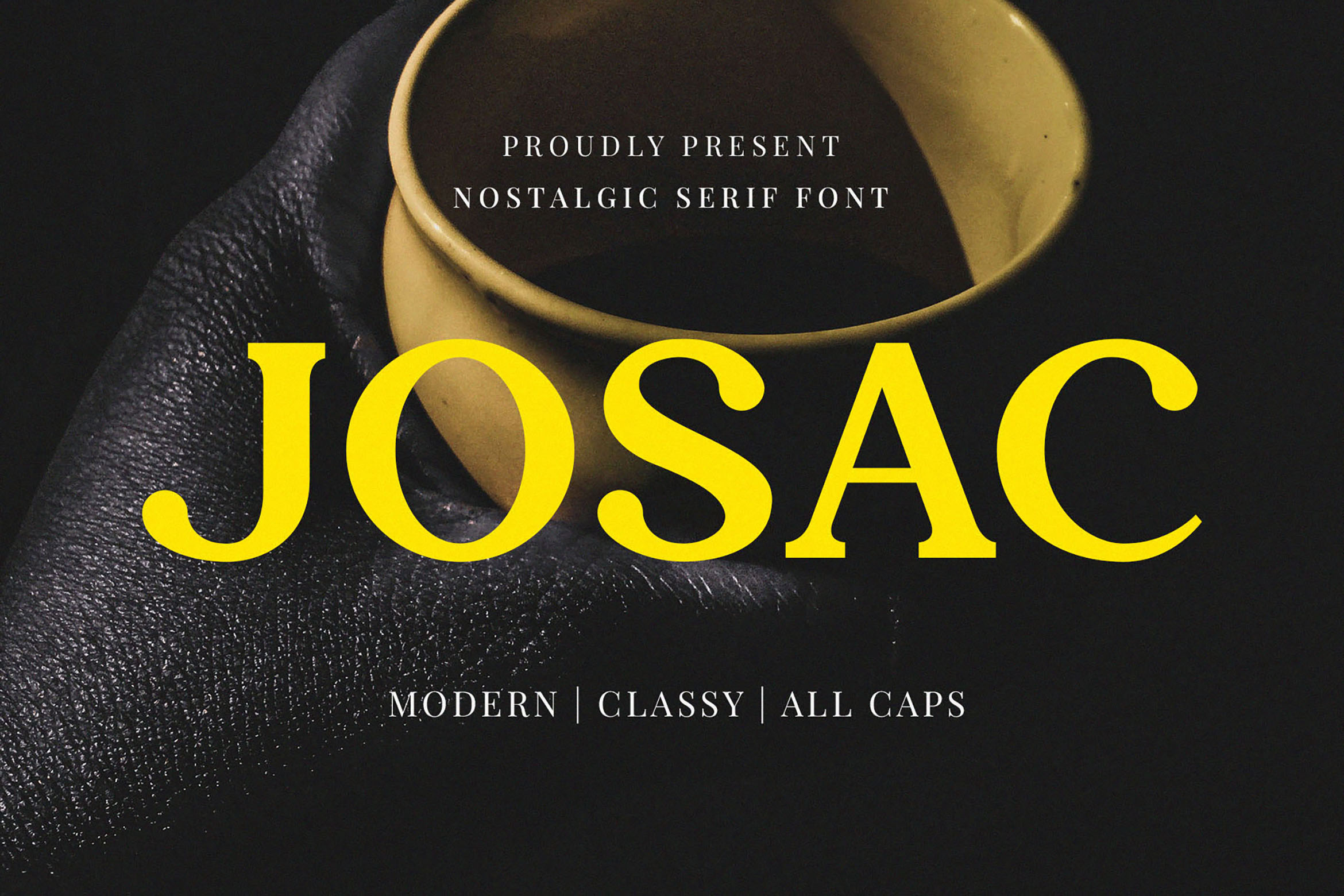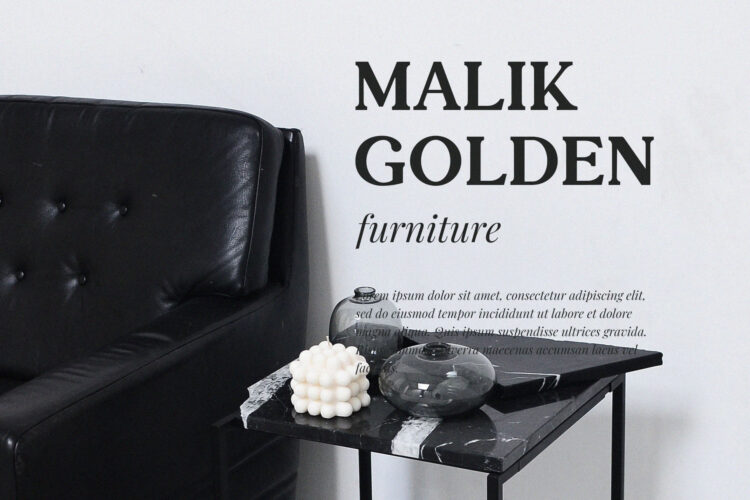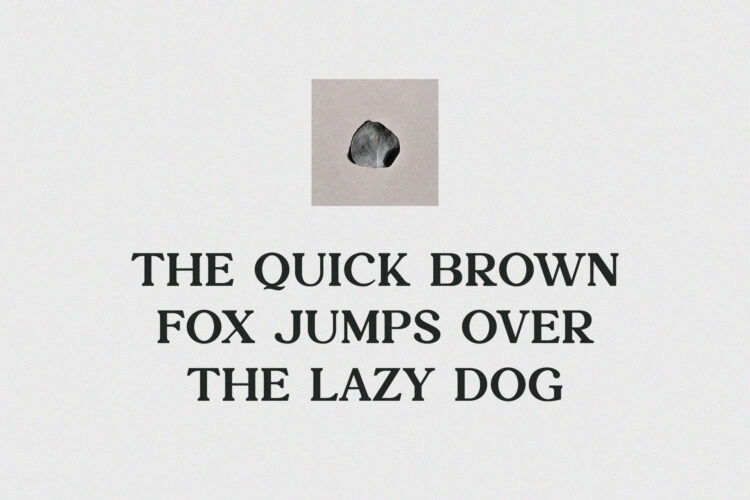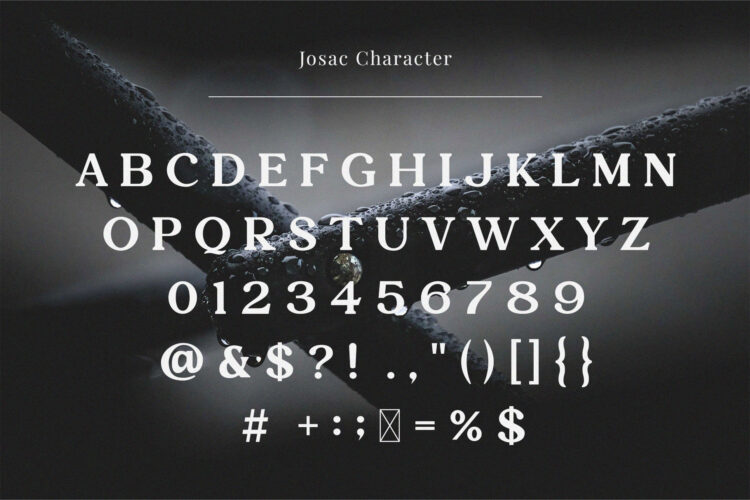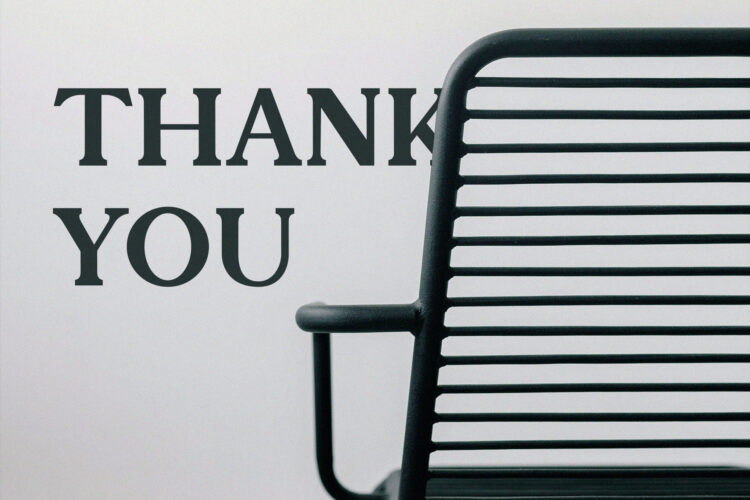
Introducing our new Josac, modern serif font with elegant style this is perfect for branding, logos, invitation, magazines, product packaging and more.
Josac – Nostalgic Serif Font